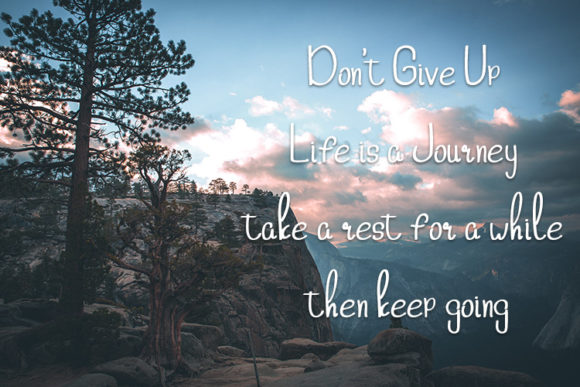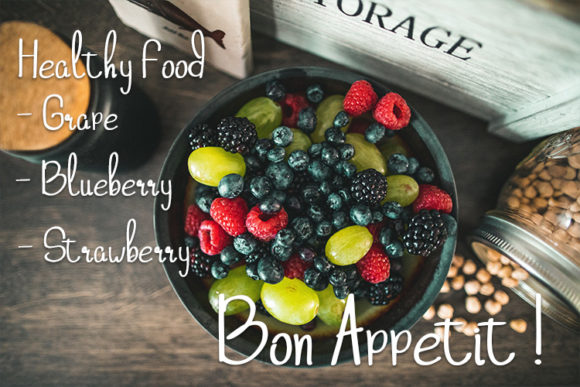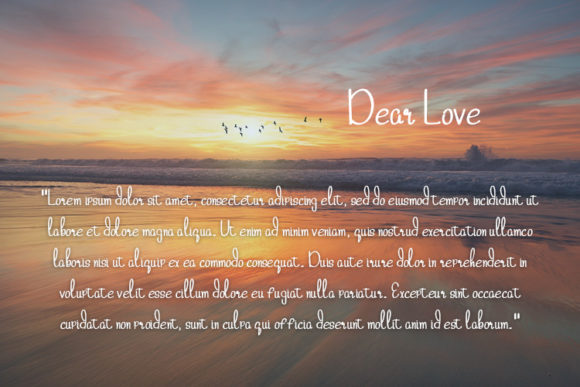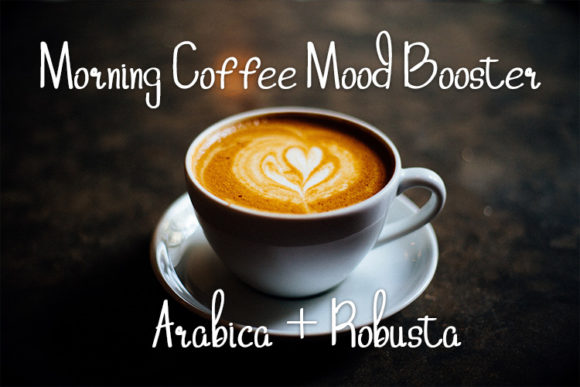
Freebird Font
About Freebird Font
The Freebird is a simple minimalist beautiful handwritten font. It looks lovely on quotes, t-shirts, signage’s, logos, business cards, goods and more.